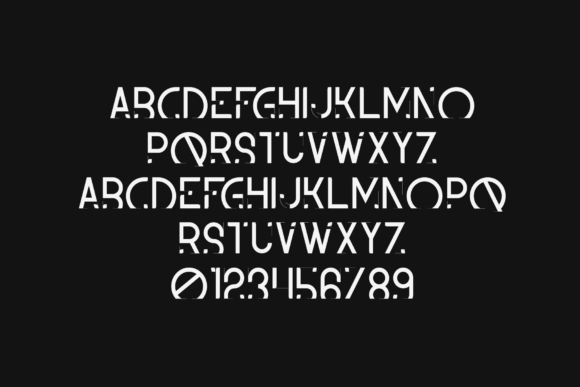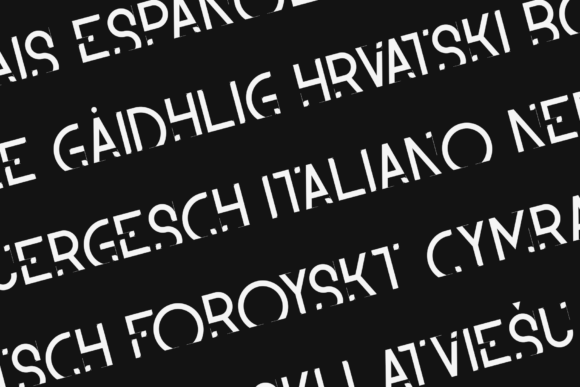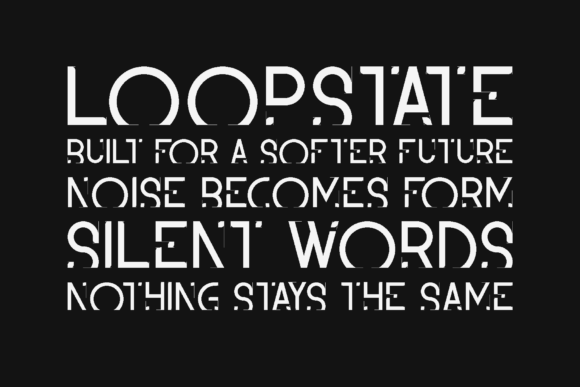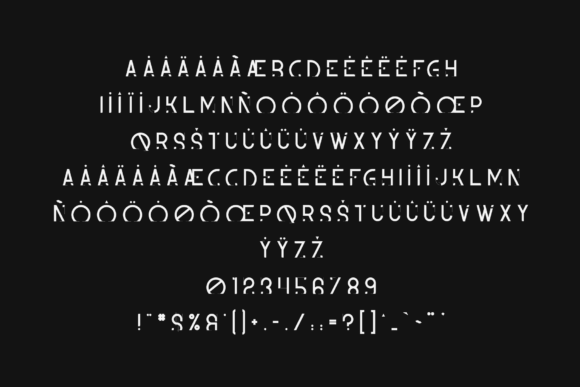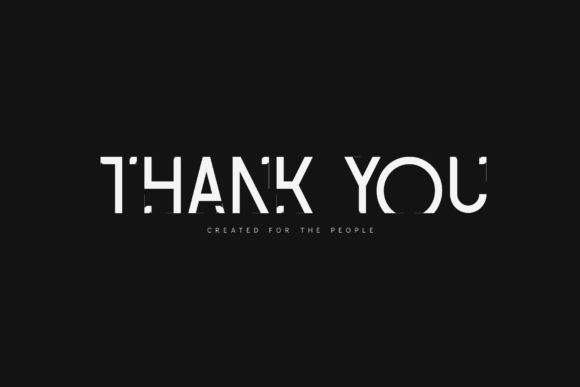
Introduction to Serendius Font
Break the mold with Serendius, a sophisticated display font designed for the digital avant-garde.
This typeface features a clean, geometric sans-serif base that has been meticulously โslicedโ or glitched, creating a sense of digital distortion and high-tech motion Its unique, fragmented anatomy makes it a powerhouse for wordmarks that need to feel technical, innovative, and disruptive.
Key Features of Serendius Font